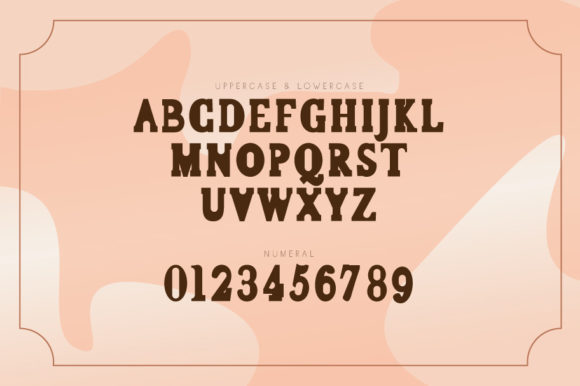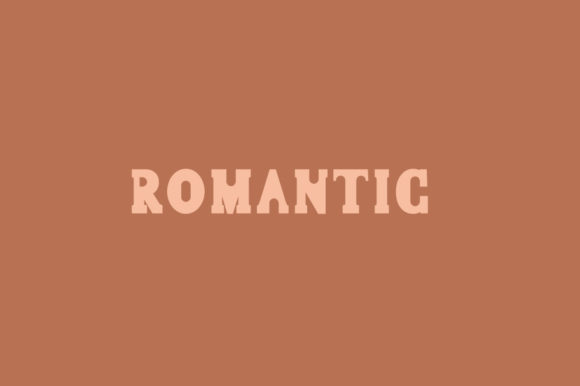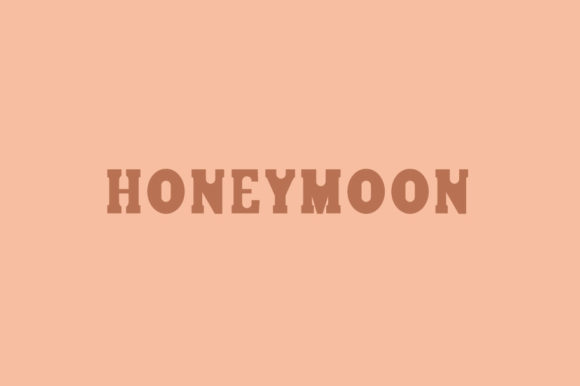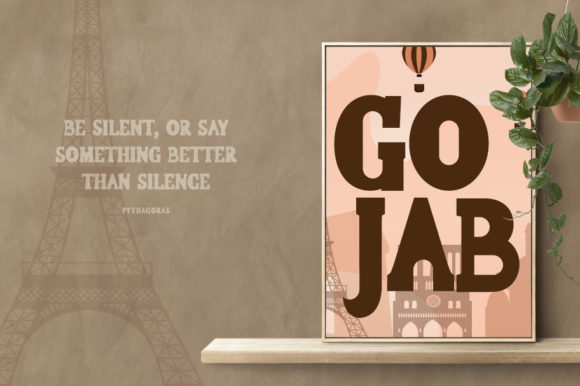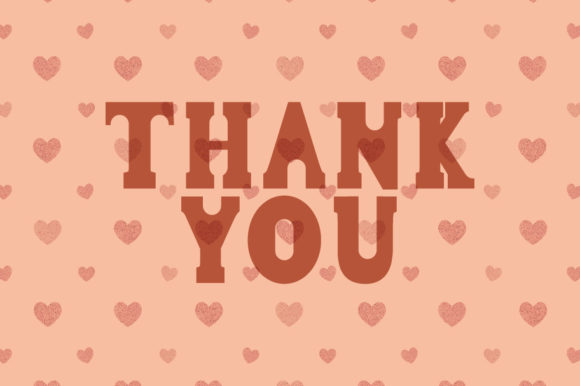
Introduction to Gojab Font
Gojab is a beautiful display font.
You can successfully use it for headings, logotype, quotes, apparel design, invitations, posters, flyers, greeting cards, packaging, book cover, printed quotes, cover albums, movies, and more Perfect if you need a dose of fun in your project.